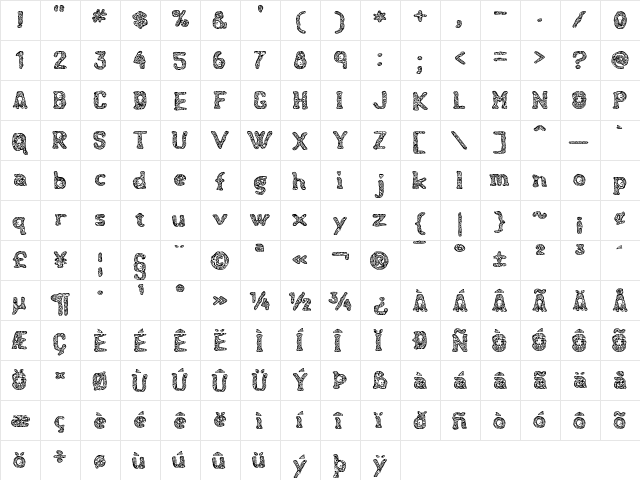
Haunting Spirits Regular
Design Context for Haunting Spirits Typeface
Haunting Spirits is a composed and adaptable typeface that performs quietly and consistently across a wide range of design contexts.